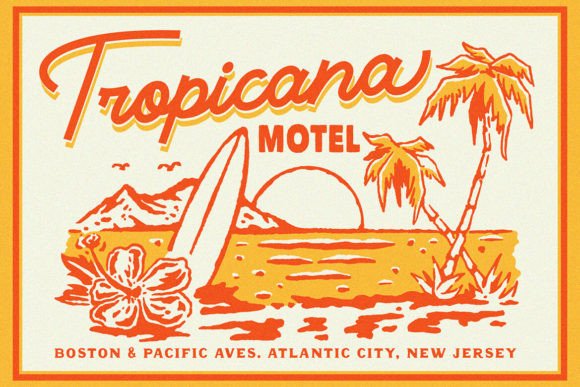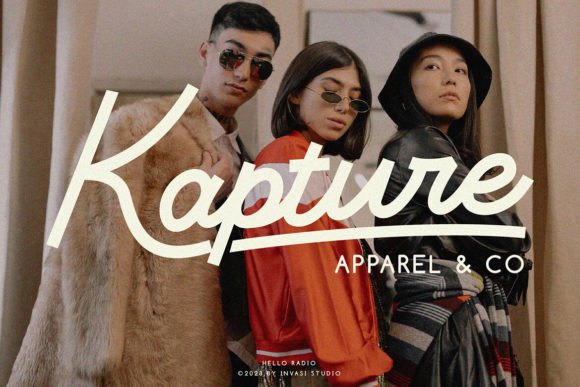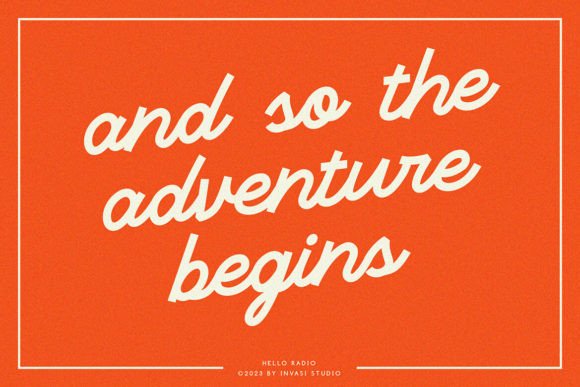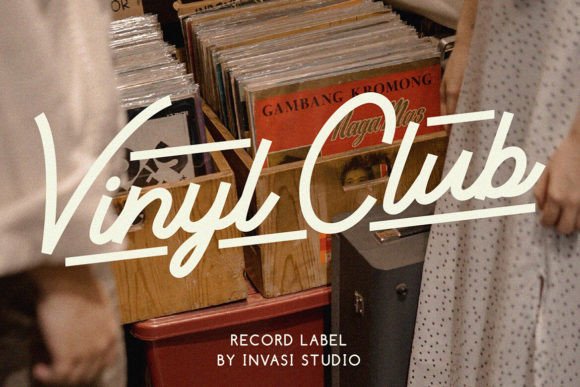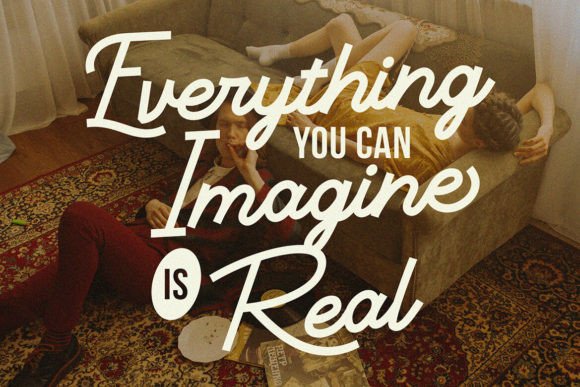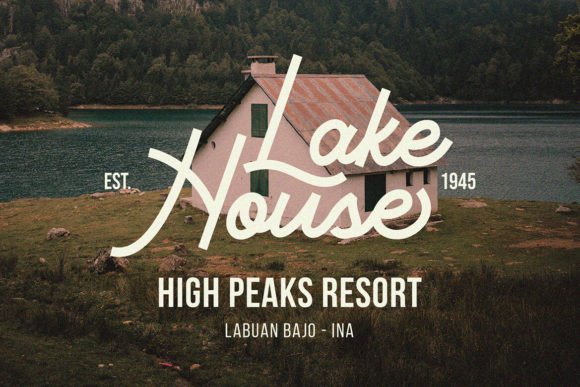
Get Ready to Tune In to the Groovy World of Design
Remember the thrill of rummaging through your grandparents’ attic, discovering a dusty old record player or a vintage radio? The nostalgic charm of these bygone eras is about to become your new best friend in the world of design. Say hello to Hello Radio font, the perfect font to add a touch of vintage charm to your designs!
This delightful monoline stroke script font is not just a pretty face; it’s a game-changer for designers looking to add a unique twist to their work. With its imperfect, handcrafted feel and support for multilingual characters, Hello Radio Font is the ultimate team player that will help you create designs that are truly one-of-a-kind.
Hello Radio Font Key Features
- Unique Characteristics: The font features a unique blend of modern and vintage elements, making it perfect for music-related projects, magazines, and posters.
- Character Set: The font includes a wide range of characters, including uppercase and lowercase letters, numbers, and punctuation marks.
Hello Radio Font Review
Hello Radio Font is a quirky, experimental font that’s sure to grab your attention. I appreciate the ✨ unique character it brings to any design project. The font’s bold lines and quirky letterforms are reminiscent of hand-drawn illustrations, making it perfect for creative projects that need a personal touch.
One of the things that really works well about Hello Radio Font is its ability to evoke a sense of nostalgia. The font’s retro vibe is instantly recognizable, making it a great choice for projects that need to tap into a specific era or aesthetic.
- ⚠️ Limited font weight options: While the font has a nice range of styles, it’s a bit limited in terms of font weights. This can make it difficult to achieve the perfect balance of legibility and visual impact.
- ⚠️ May not be suitable for large blocks of text: Due to its quirky nature, Hello Radio Font may not be the best choice for large blocks of text. The font’s irregular letterforms can make it difficult to read, especially at smaller font sizes.
Overall, I think Hello Radio Font is a great choice for designers who want to add a touch of whimsy and personality to their projects. While it may have some limitations, the font’s unique character and retro vibe make it a standout choice for creative projects.
Tip: Use Hello Radio Font for headings and titles to create a bold and modern look.
Tip: Use Hello Radio Font for titles and headings in your designs to create a unique and eye-catching look.
Tip: Use Hello Radio Font for headings and titles to create a consistent and professional look across your presentations and documents.
Hello Radio Font is ideal for:
- Modern and trendy designs
- Web and digital designs
Remember to use Hello Radio Font in moderation to avoid overwhelming your designs.